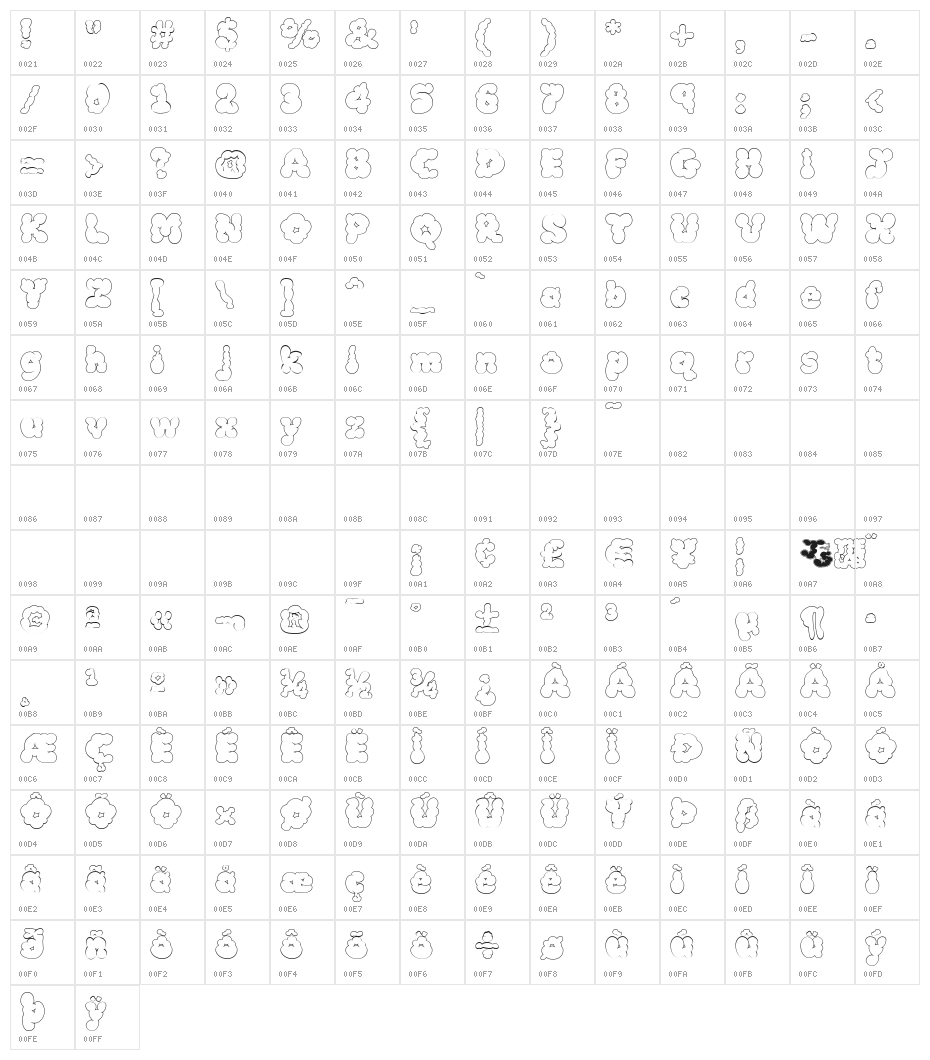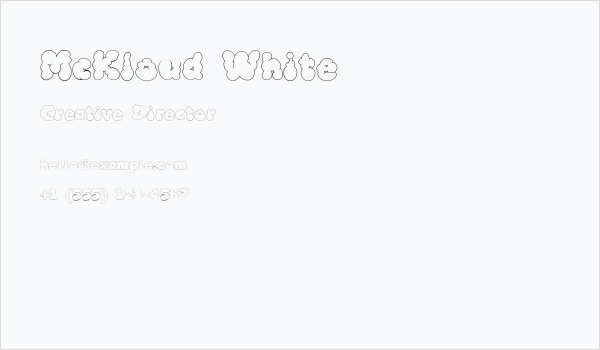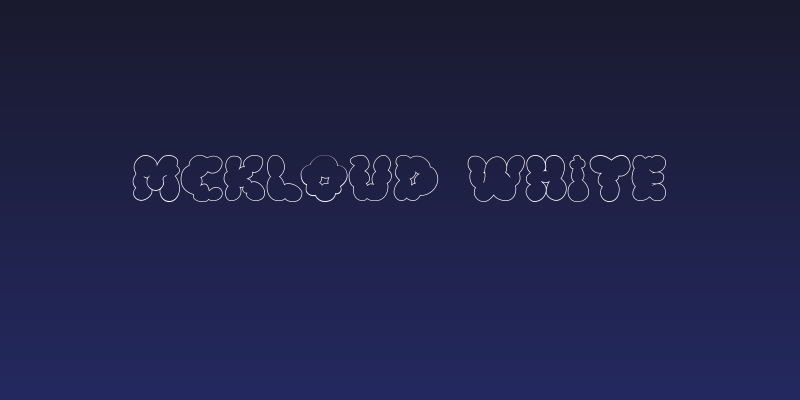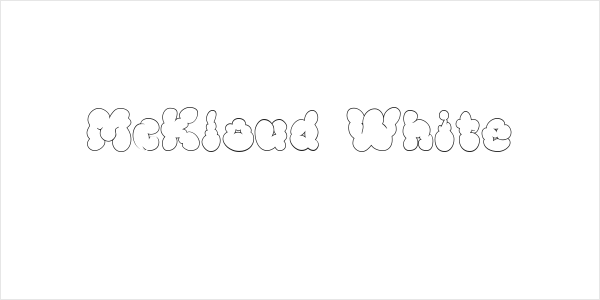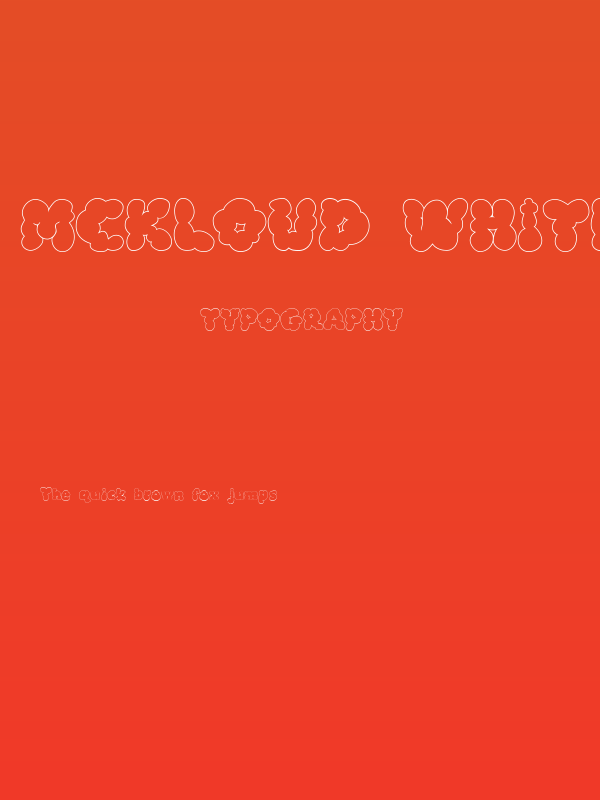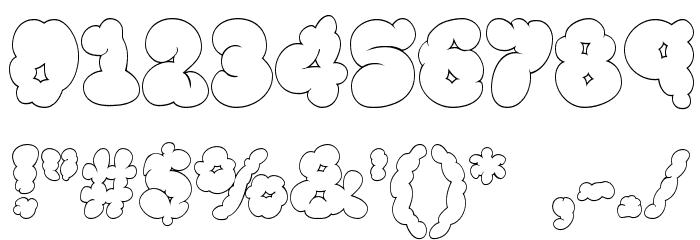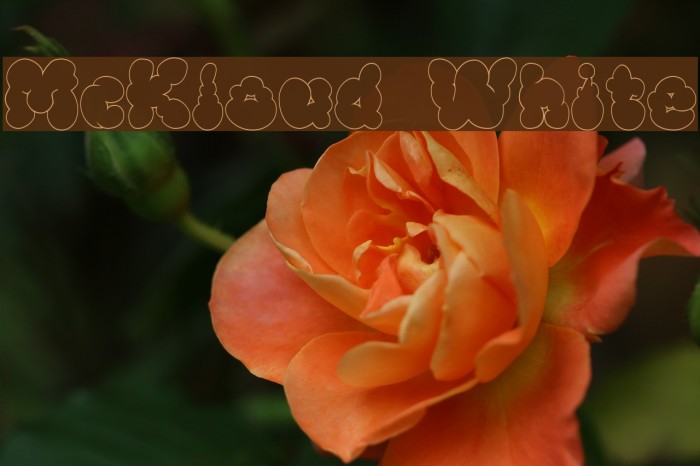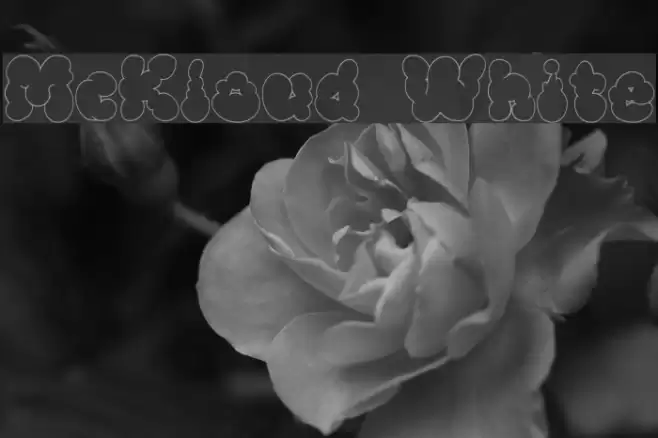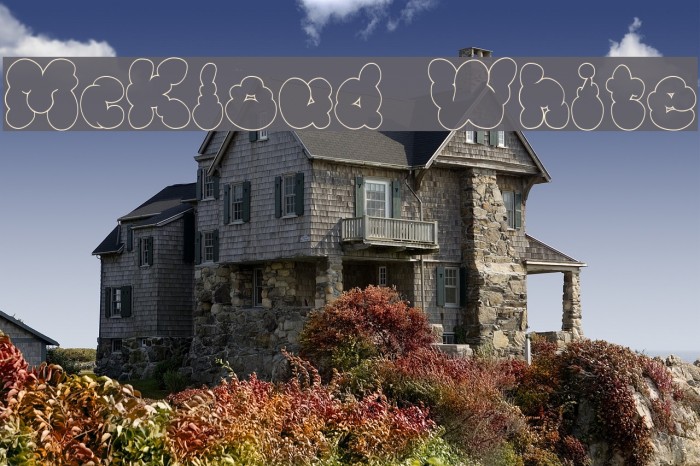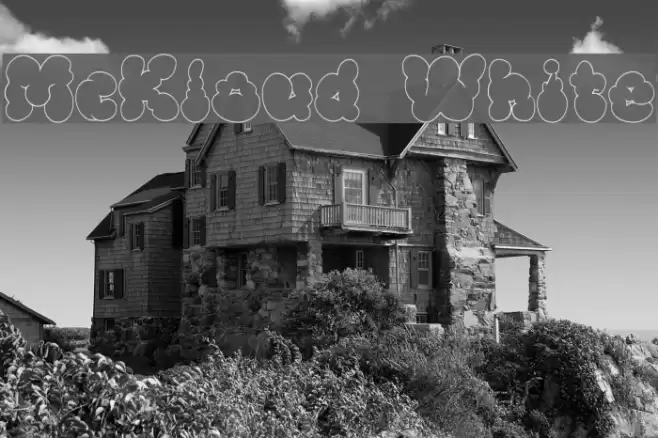
McKloud White Font
McKloud White Description
This playful and whimsical font features a bubbly, cloud-like appearance with rounded, inflated letterforms. Each character is outlined, giving it a soft, airy feel reminiscent of cartoonish or comic styles. The font's unique design includes small cutouts within the letters, adding a touch of quirkiness and charm. Its bold and exaggerated shapes make it stand out, perfect for creative and fun projects. The overall look is lighthearted and imaginative, making it ideal for designs that aim to capture attention with a sense of humor and creativity.
| Width | Expanded |
| Overall Style | Playful, Whimsical |
| Proposed Projects | Ideal for children's book covers, playful branding, party invitations, and whimsical posters. |